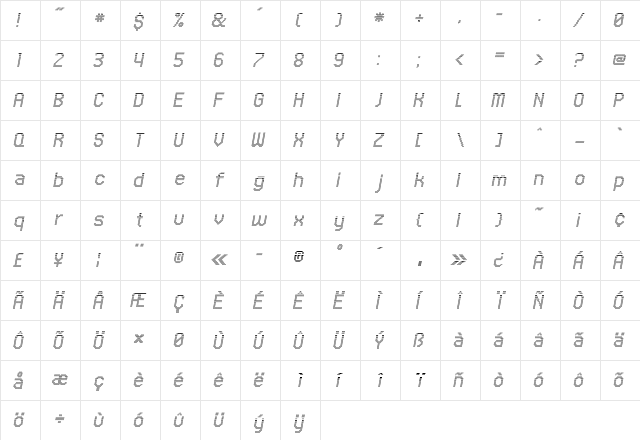
UNDACircleFine Italic Font Preview
UNDACircleFine Italic
UNDACircleFine Italic Font Details
Design Context for UNDACircleFine Typeface
UNDACircleFine offers clean, dependable letterforms without strong stylistic allegiance, making it a practical choice for designers who need flexibility. The dynamic lean of this cut emphasises speed and emphasis in any layout.